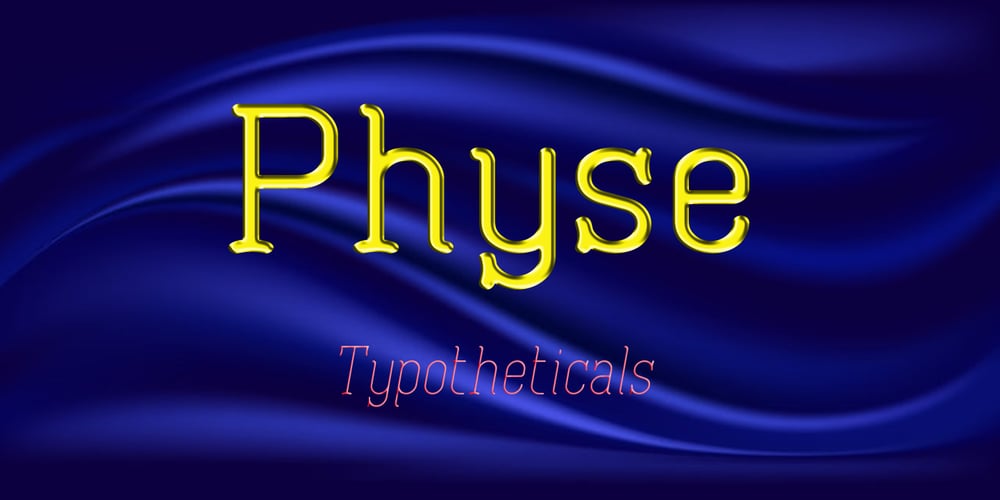
Physe Font Family was designed by Graham Meade and published by Typotheticals. Physe contains 16 styles and family package options. Physe.Physe is a basic set of fonts, designed for scrapbooking and general use. It comes in a variety of versions, with a light version, expanding up to bold. Many hurdles were taken to finalize this version, both physical and electronic. Like all of us, as I grow older, my glaucoma keeps pace with my arthritis, while I look on in amusement, hedging my bets on which will be the one to finally complete my retirement.